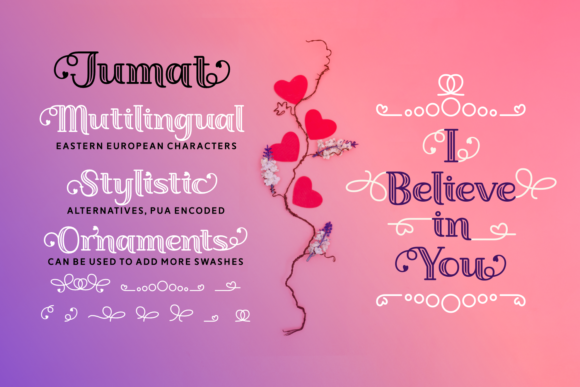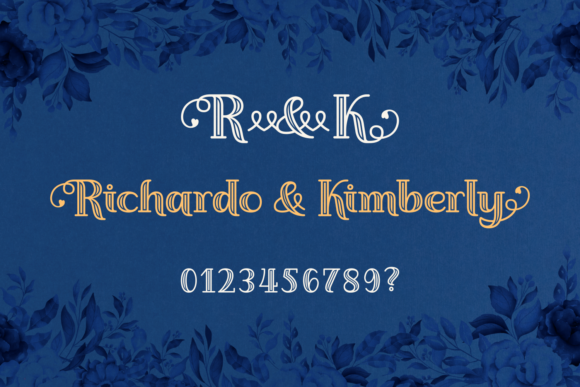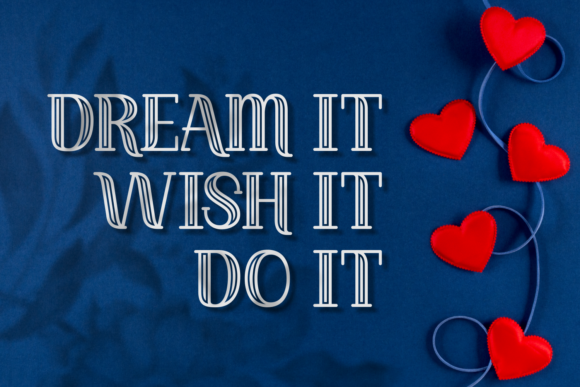
Introduction to Jumat Font
Remember that moment when you’re working on a creative project and you can’t seem to find the perfect font to bring your design to life? It’s like searching for a missing piece of a puzzle, and it’s frustrating. But what if I told you that there’s a font that can elevate your design to new heights, adding an air of sophistication and elegance to your work?
Enter the Jumat Font, a high-quality design resource that’s about to become your new go-to. With its unique blend of traditional influences and contemporary flair, Jumat Font is the perfect addition to any creative project. Whether you’re working on a brochure, a website, or a social media campaign, this versatile font will help you achieve an exquisite, yet subtle look that’s sure to impress.
As a designer, you know how valuable a great font can be. It’s not just about aesthetics; it’s about conveying the message and tone of your design. And with Jumat Font, you’ll have the freedom to express yourself in a way that’s both creative and professional. Plus, with a free download option, you can start experimenting with this fantastic font right away, even on projects that require a transparent background.
Key Features of Jumat Font
- Unique and creative design elements, making it an excellent choice for designers seeking a distinctive look.
Honest Review: Jumat Font
As a designer, I’m always on the lookout for high-quality design resources to elevate my creative projects. Recently, I had the chance to work with Jumat Font, and I’m excited to share my honest review.
- Unique and stylish design: Jumat Font offers a distinctive look that can add a touch of elegance to any project.
- Limited font styles: Jumat Font is currently available in a limited number of styles, which might not be suitable for complex design projects.
- Not suitable for body text: Due to its unique design, Jumat Font is better suited for headings and titles rather than body text.
Overall, Jumat Font is a great addition to any designer’s toolkit. While it has its limitations, its unique design and free download make it an excellent choice for creative projects. I’d definitely recommend giving it a try!
Tips for Getting the Most Out of Jumat Font
To get the most out of Jumat Font, use it in combination with other design elements to create a visually appealing design. Experiment with different font sizes, colors, and styles to find the perfect combination for your creative project.
Common Use Cases for Jumat Font
Jumat Font is commonly used in graphic design, digital art, and typography projects. It’s perfect for creating eye-catching titles, headings, and paragraphs in your design. You can also use it to create custom logos, icons, and graphics for your creative project.